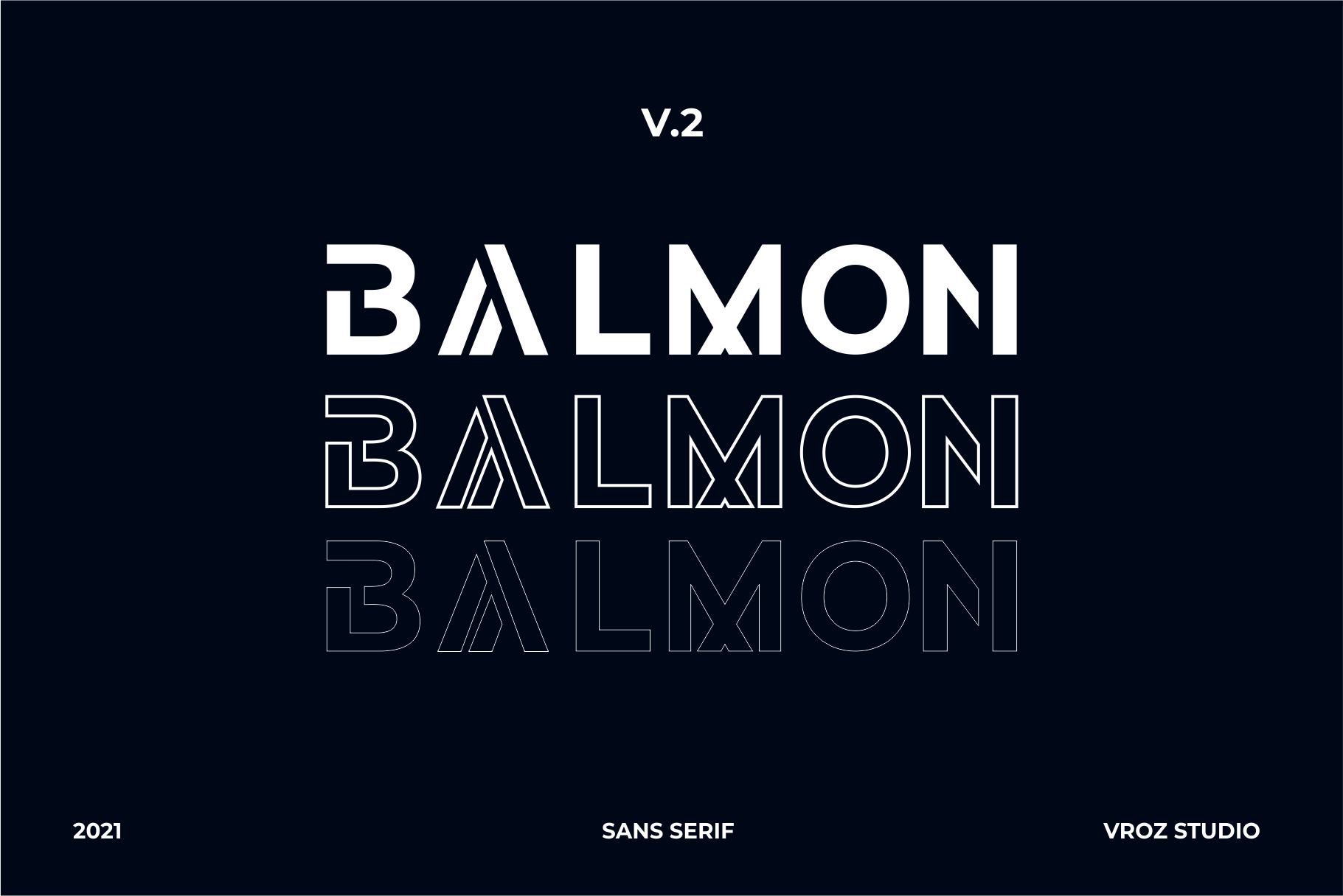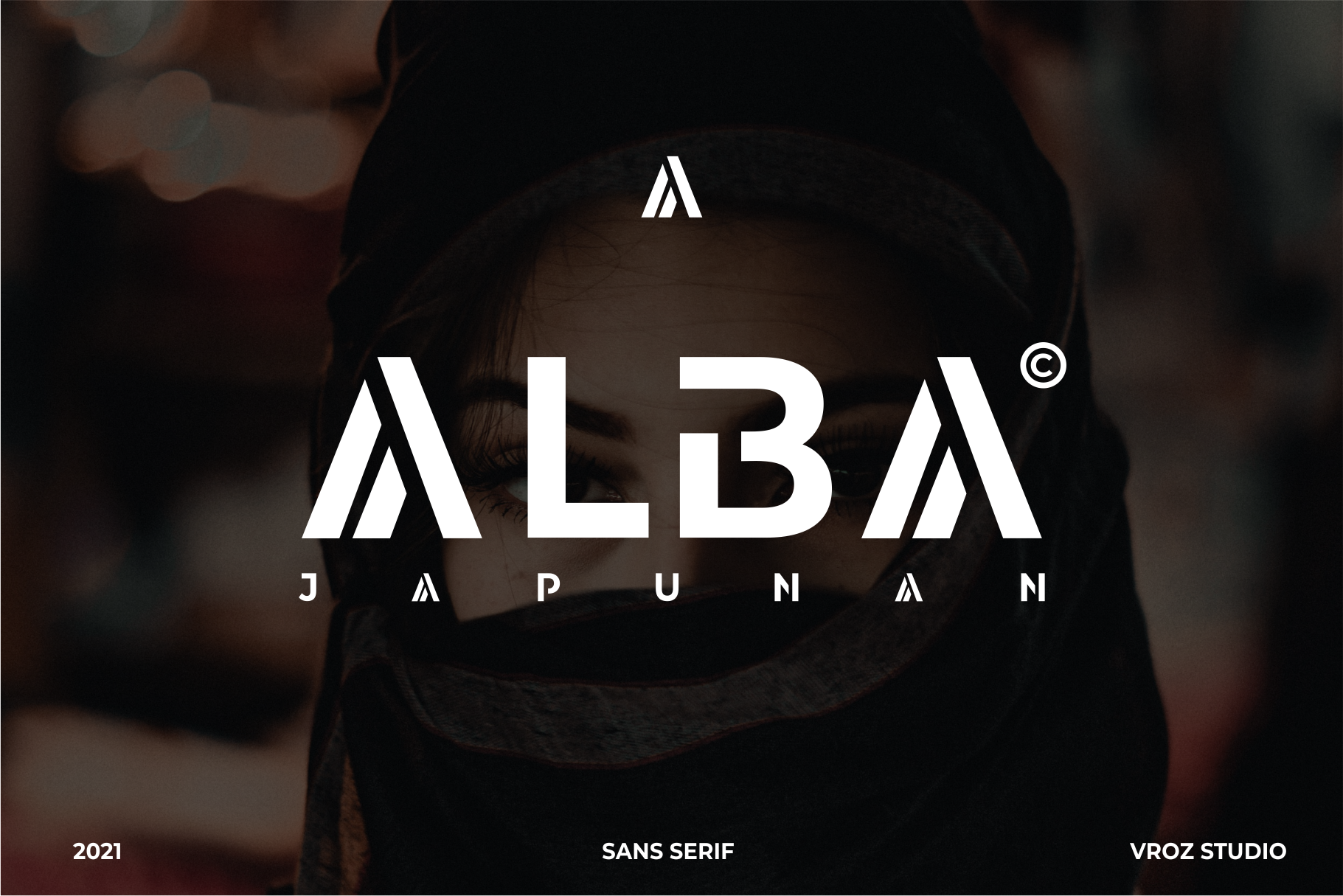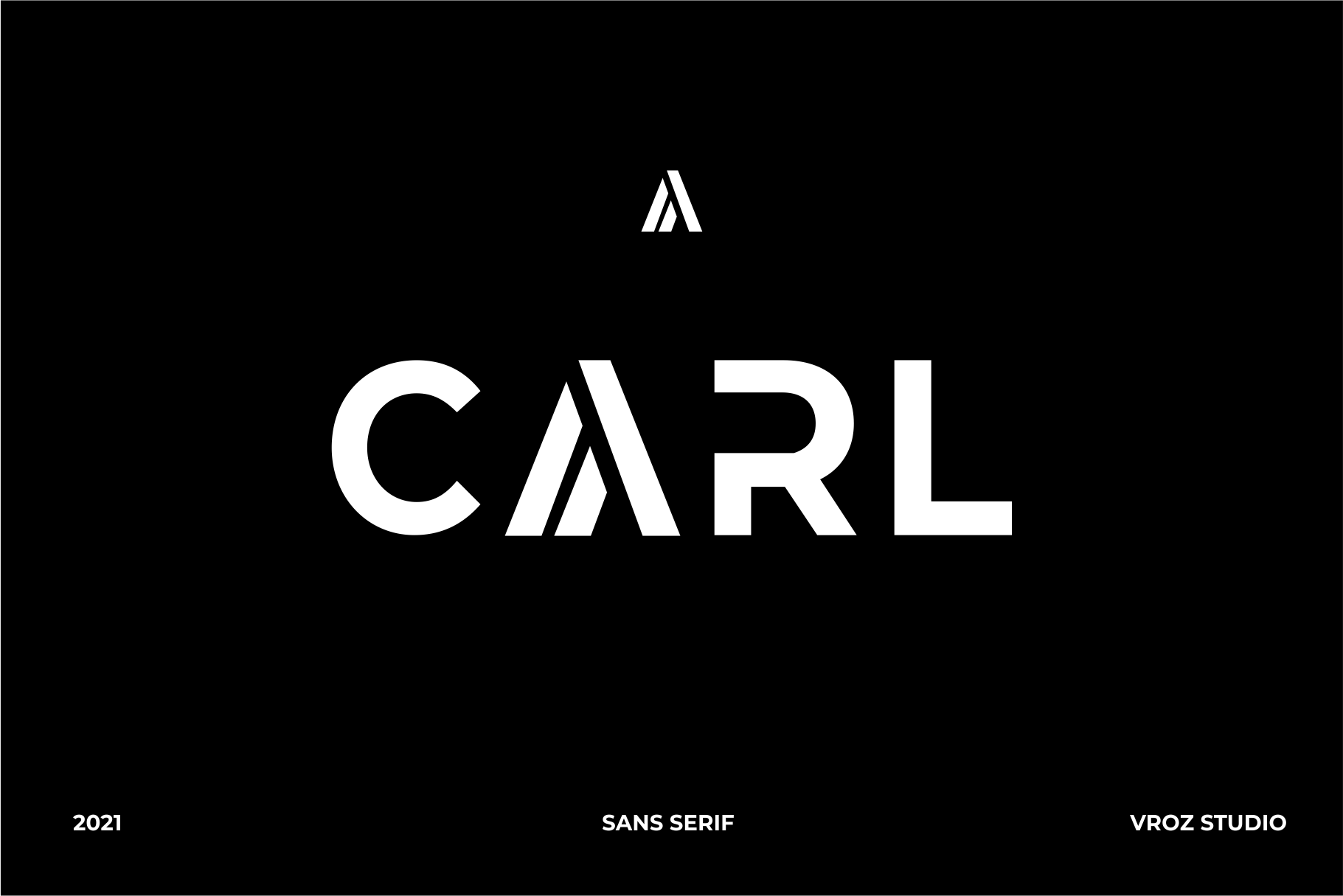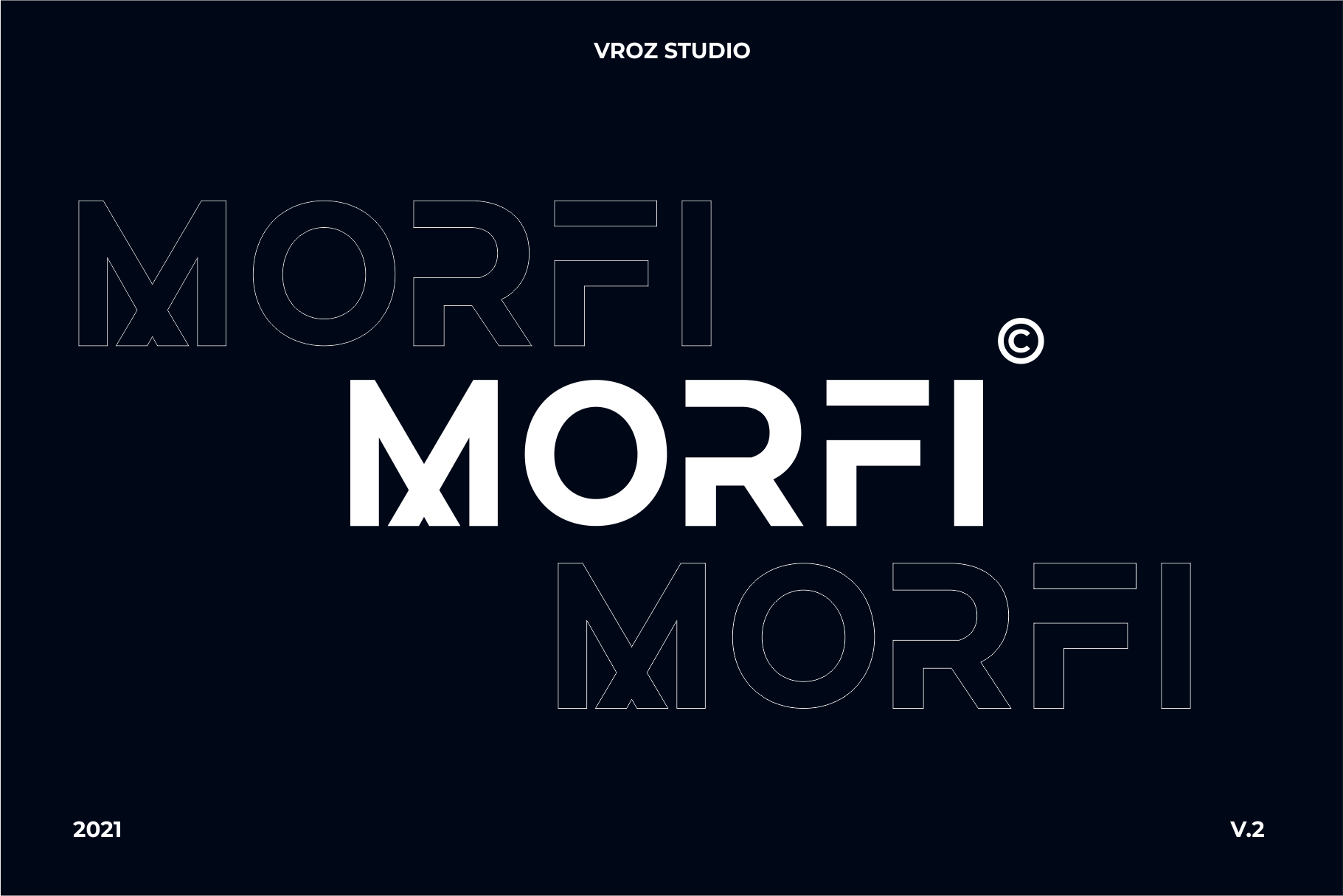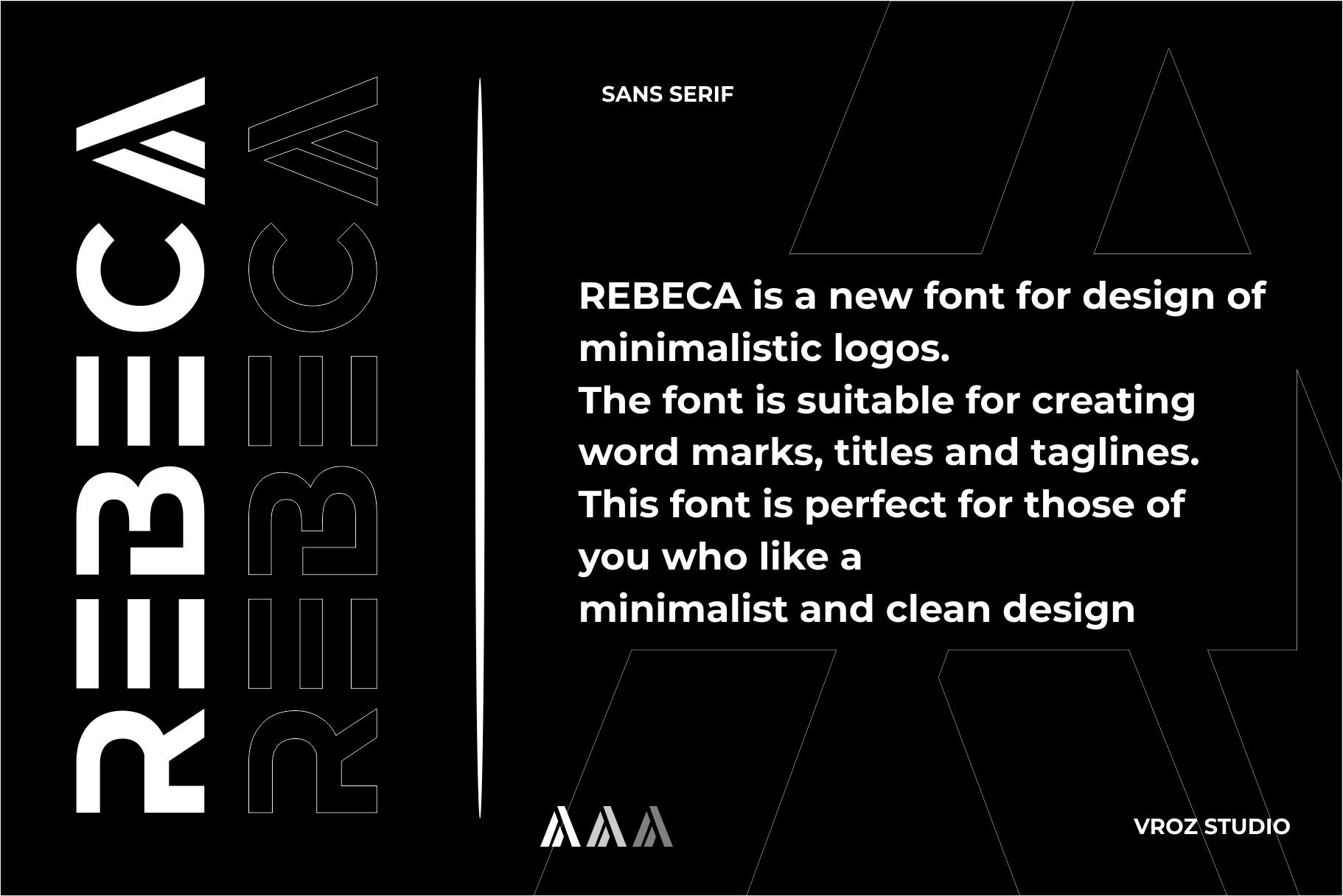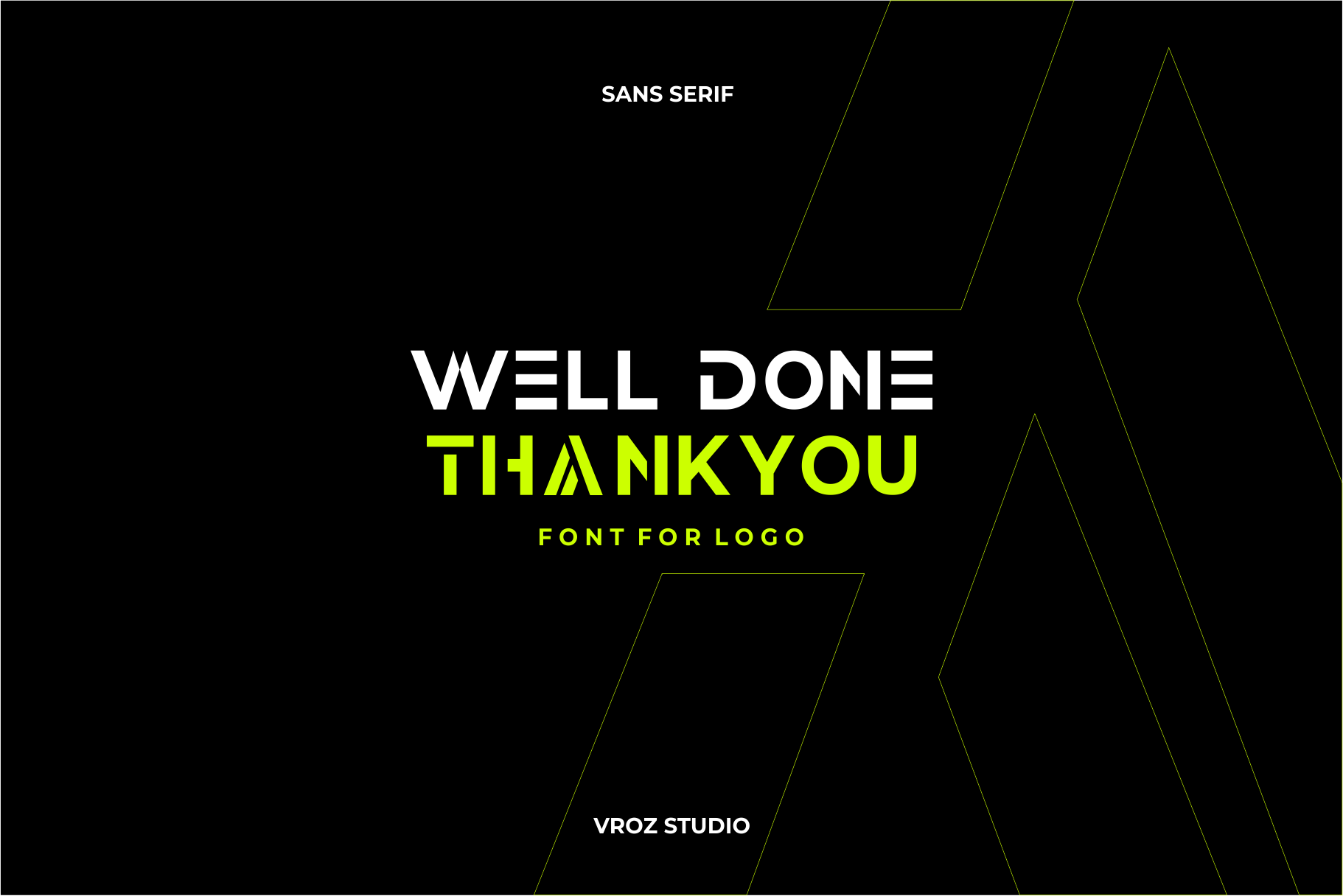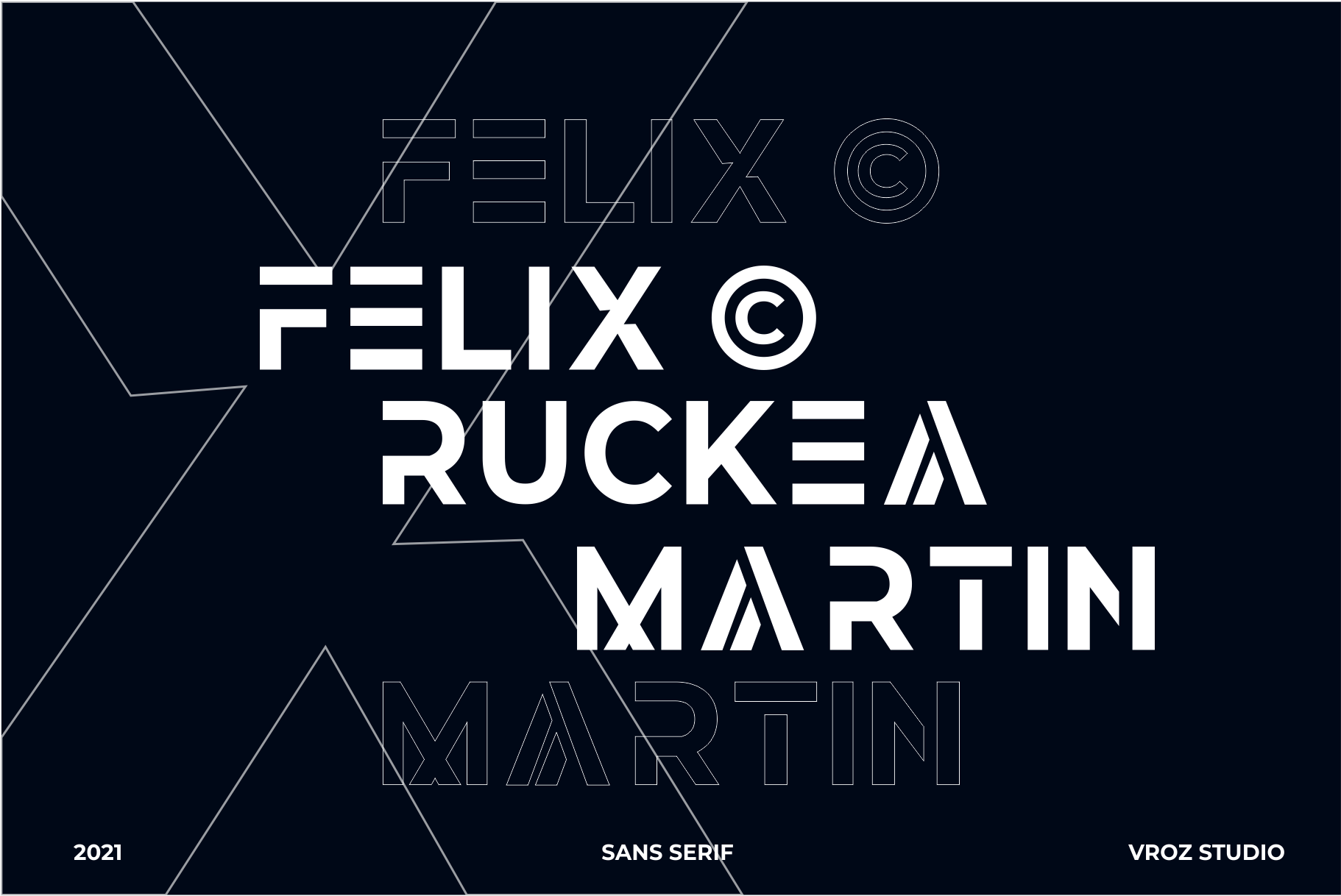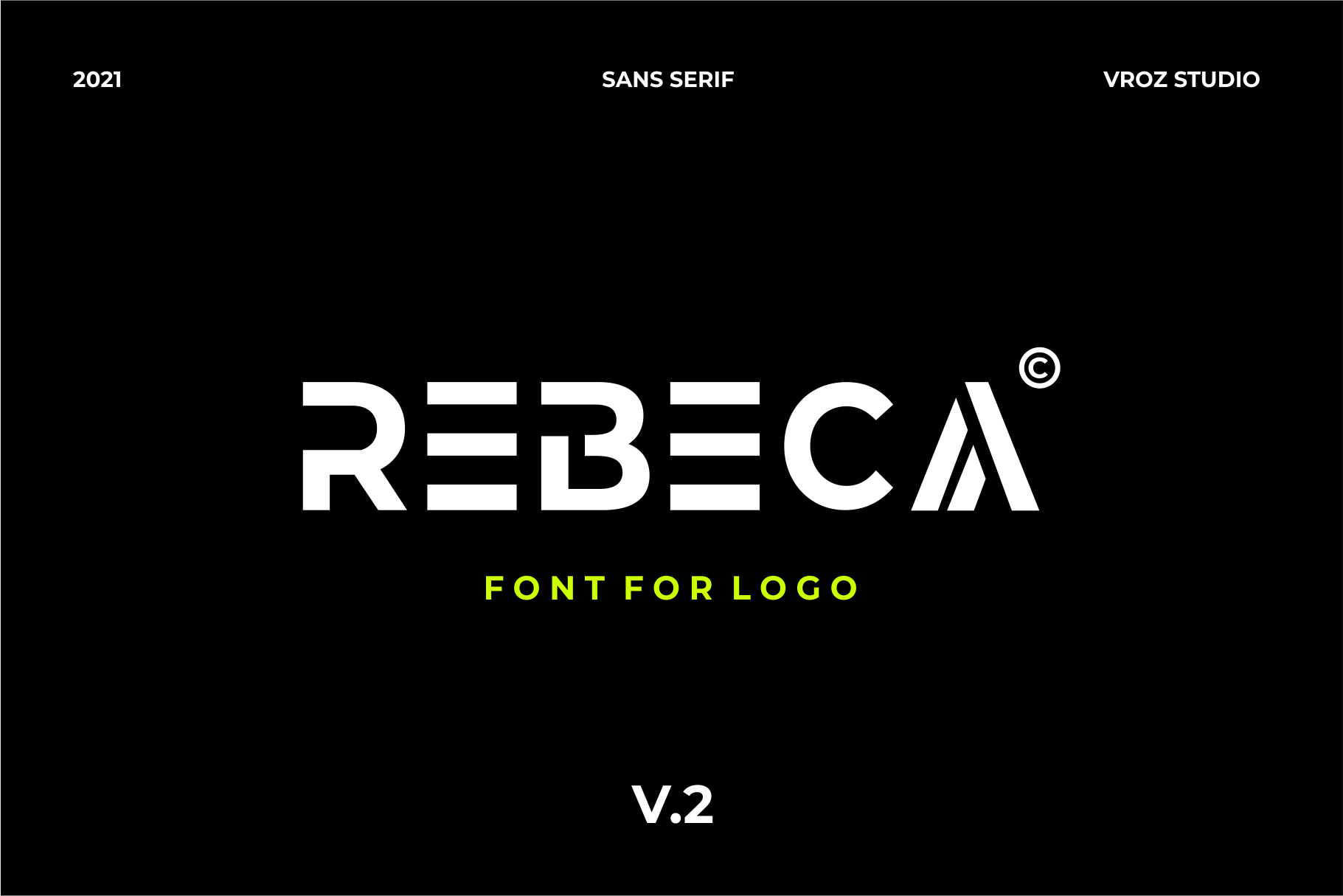
REBECA is a new font for design of minimalistic font for logos. The font is suitable for creating word marks, titles, taglines. This font is perfect for those of you who like a minimalist and clean design - if you want to use this font for logo mark , i will make it for free if you don't have softwer designs. (logo license is not included) - please contact me for more details thank you vroz studio | REBECA Logo Font | Logo & Branding | Vroz Studio